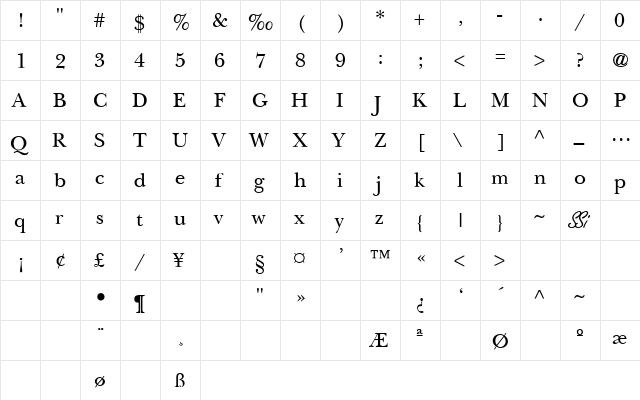
Baskerville Light SSi Light
Design Context for Baskerville Light SSi Typeface
Baskerville Light SSi offers clean, dependable letterforms without strong stylistic allegiance, making it a practical choice for designers who need flexibility. Its slender proportions lend an understated elegance to any composition.
Pro Tip: Use Baskerville Light SSi in both headline and body roles to test its range before committing to a single application.